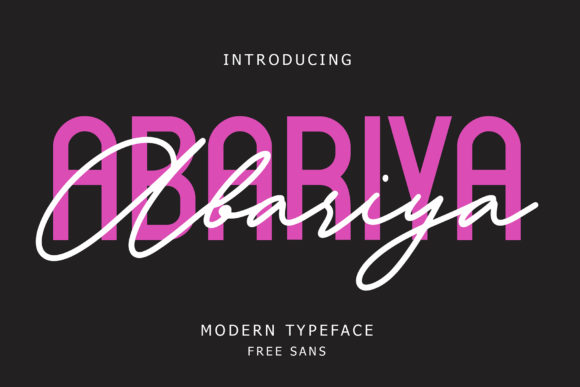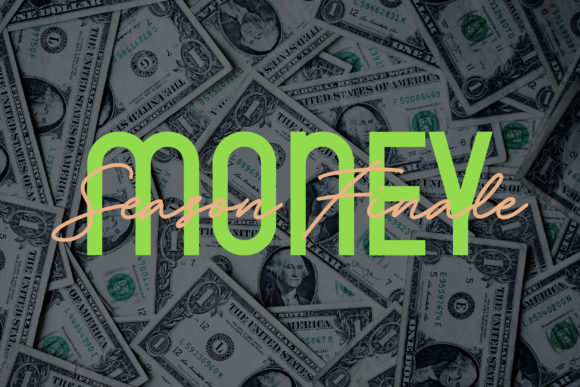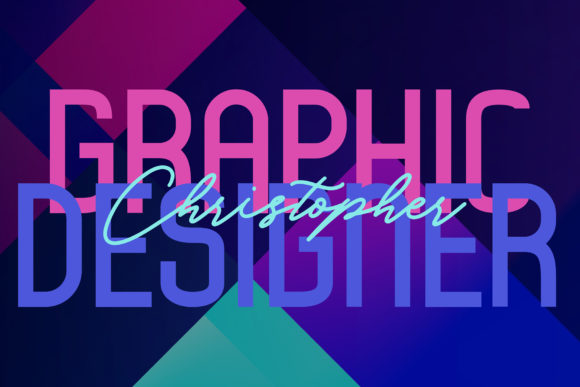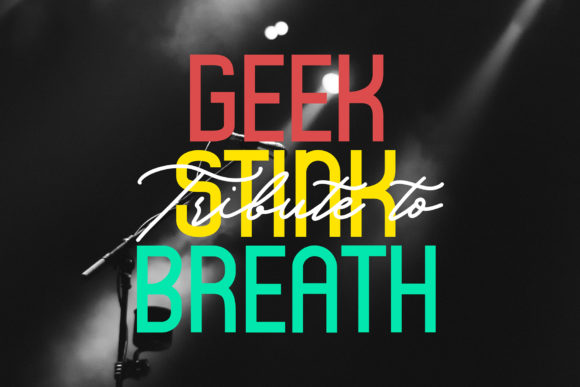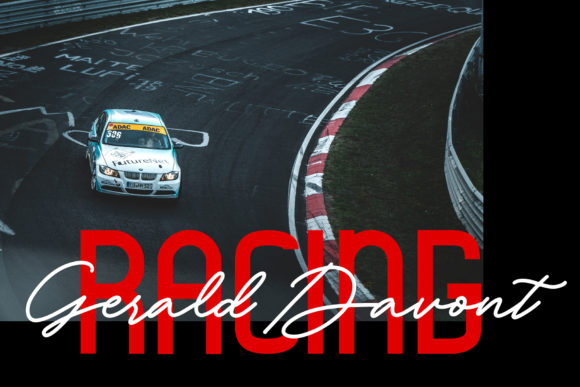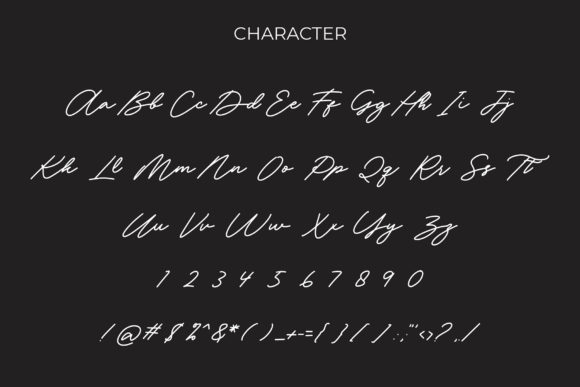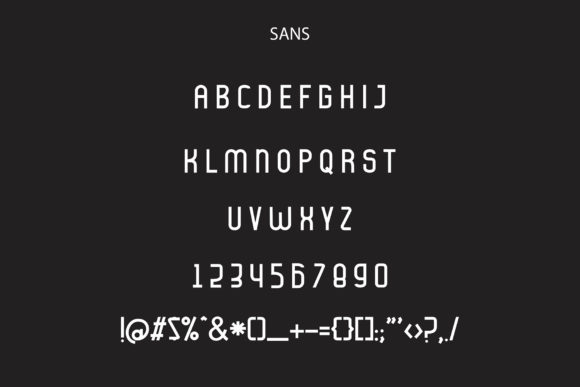
Abariya Font
About Abariya Font
Abariya duo is a match made in heaven, it perfectly combines a cute handwritten font with a gorgeous sans serif. Combining these two fonts on your next design will give a unique and modern feel.
It will elevate a wide range of design projects to the highest level, be it branding, headings, wedding designs, invitations, signatures, logos, labels, and much more!